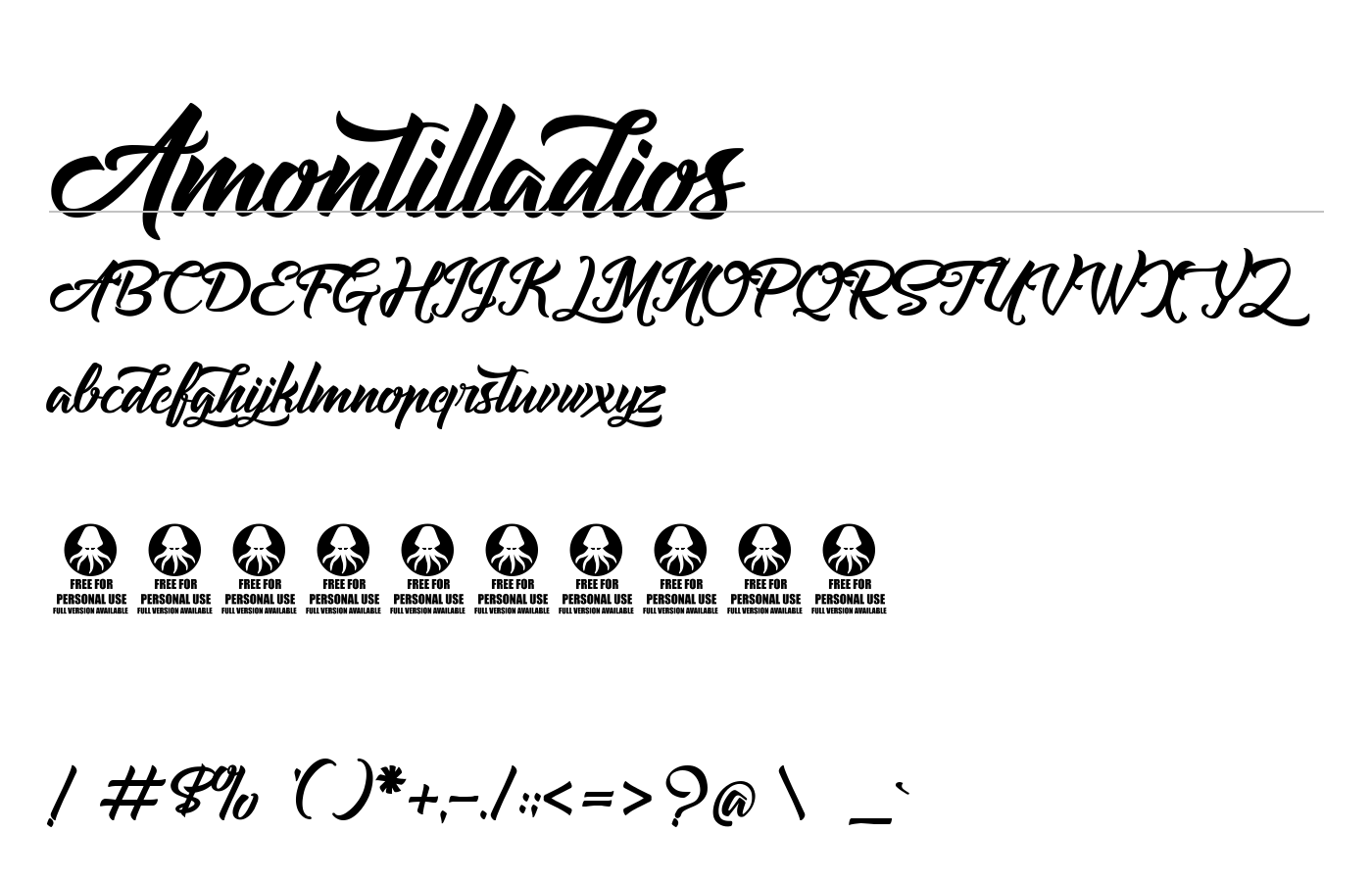
Amontilladios is a stylish script font featuring elegant, flowing strokes with medium contrast and a naturally handwritten feel. Its smooth curves and distinctive, flourished letterforms make it perfect for adding a sophisticated, personal touch to branding, invitations, and decorative headlines. This font works best where a vibrant, graceful, and approachable atmosphere is desired.
Amontilladios Font
About Amontilladios Font